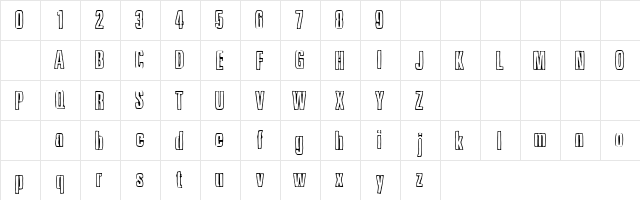
Wall Paper Regular
Design Context for Wall Paper Typeface
Wall Paper is a composed and adaptable typeface that performs quietly and consistently across a wide range of design contexts.